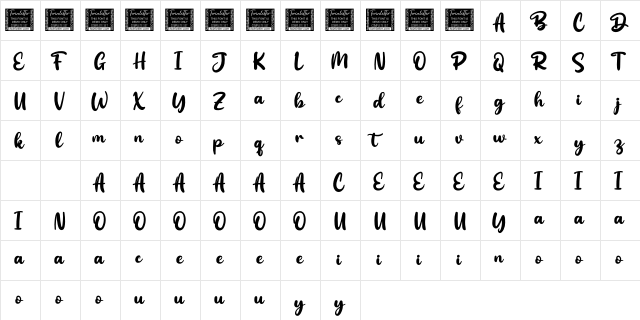
Design Context for Bintank Typeface
Bintank is a composed and adaptable typeface that performs quietly and consistently across a wide range of design contexts.